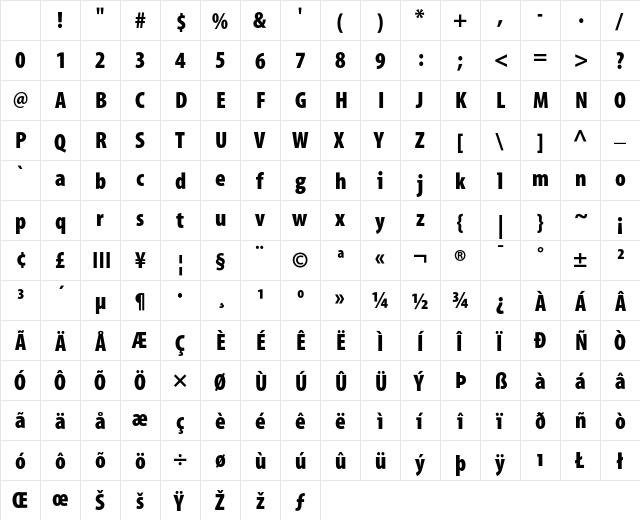
Complete BerlinMyriad BlackCond glyph index. Displaying only characters natively supported by BerlinMyriad BlackCond font.
BerlinMyriad is a composed and adaptable typeface that performs quietly and consistently across a wide range of design contexts. Its narrow stance lets it pack a punch even in space-constrained designs.